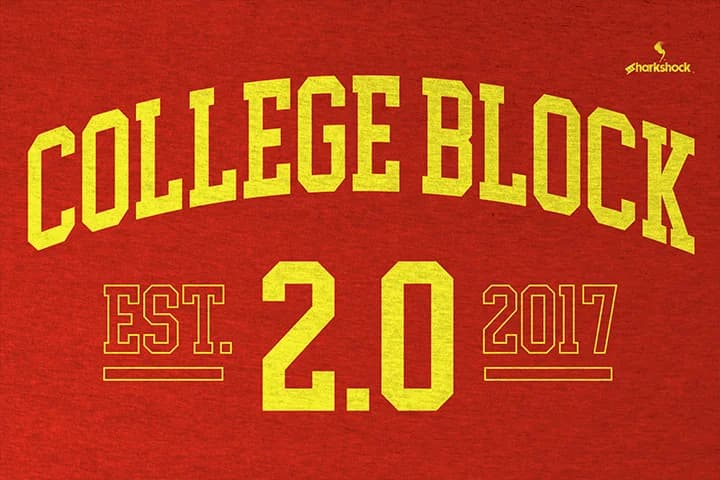
This font carries a confident, slightly retro punch: the kind of weight you'd want anchoring a statement piece. College Block 2.0 is Sharkshock's expanded rethinking of the original, with letters now sitting roughly 30% taller than before. That extra height makes a real difference when you're working with curved baselines or arching text across apparel. The redesigned character set includes reworked European accents and a complete Cyrillic foundation, plus extensive diacritical support for multilingual projects.
Where this font really shines is in applications that need confident, chunky letterforms. Varsity hoodies and athletic department merchandise are obvious choices, but consider also sports league logos, team identity marks that balance modern sensibility with timeless appeal, and retro-leaning brand identities for craft breweries or vintage-inspired agencies. AppliquΓ© work translates well. The uniform stroke thickness moves cleanly from screen to embroidery stitching patterns. That consistency holds legibility at display sizes and across web graphics equally, making it useful for everything from social media graphics to large-format print applications.
Pair College Block 2.0 with a narrow, unadorned sans-serif to handle body text and create visual contrast. That combination gives you flexibility for everything from apparel tags to website headers. Find it on Creative Fabrica and start building.
College Block 2.0 Font is a slab serif font that shines as a display or heading face. Pair it with a clean sans-serif or serif font for body text β the contrast creates a clear hierarchy while the two styles stay balanced and easy to read.